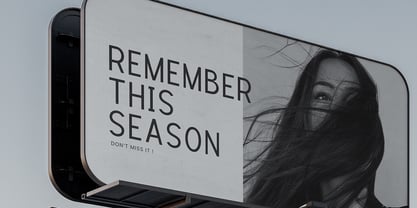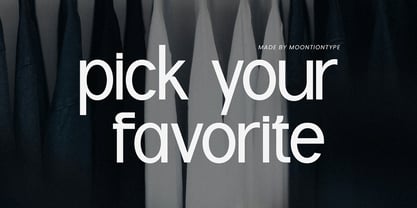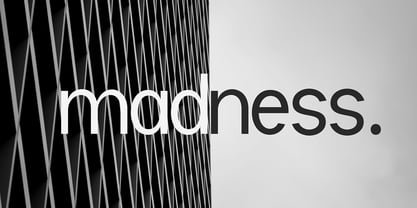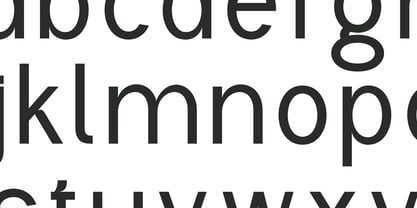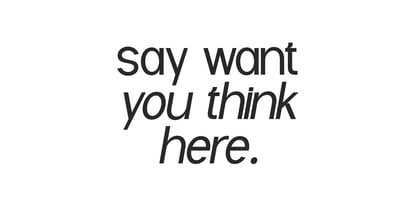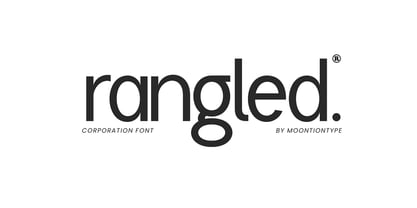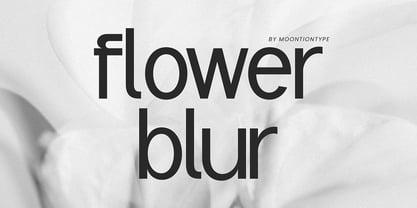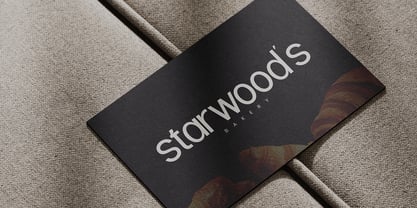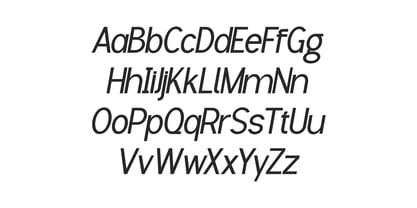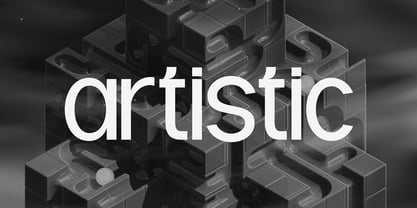
Rangled
by Moontiontype
The Rangled Font Family was designed by Dinda Nur Dwiyanti and published by Moontiontype. Rangled contains 1 styles.
Rangled is a modern corporate sans serif font designed for clean, professional, and sophisticated branding. With its balanced letterforms and minimalist structure, this typeface delivers a strong visual identity perfect for business, technology, fashion, and editorial projects. Its sleek curves and contemporary feel make it highly versatile — whether you're designing logos, brand identities, websites, presentations, packaging, or social media graphics. Features: - Modern corporate style - Clean & minimalist design - Professional and versatile - Perfect for branding & logo design - Ideal for business, tech, startup, and editorial use - Clear readability in both large and medium sizes Perfect For: - Logo design - Brand identity - Corporate presentations - Website headers - Packaging design - Social media posts - Business cards & stationery Rangled brings confidence, clarity, and elegance to your design projects. Elevate your brand with a modern typeface that speaks professionalism and style. Thank You Moontiontype
Designers: Dinda Nur Dwiyanti
Publisher: Moontiontype
Foundry: Moontiontype